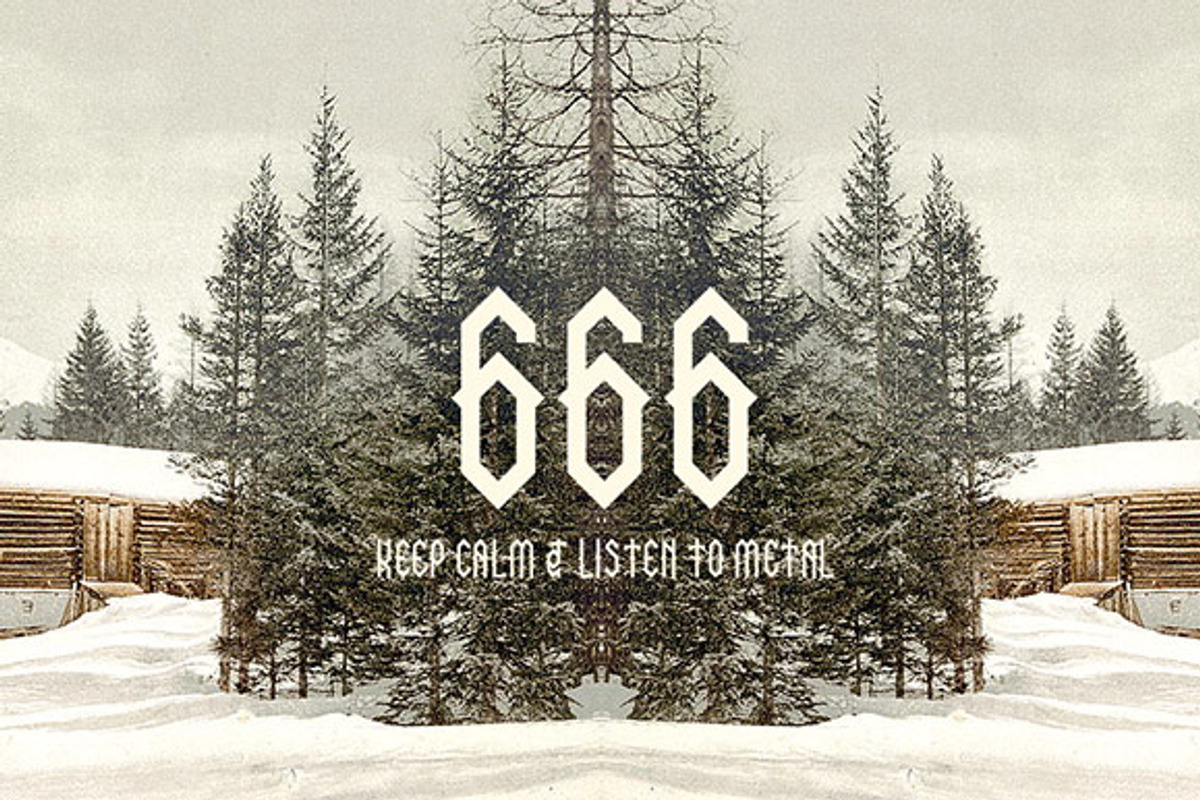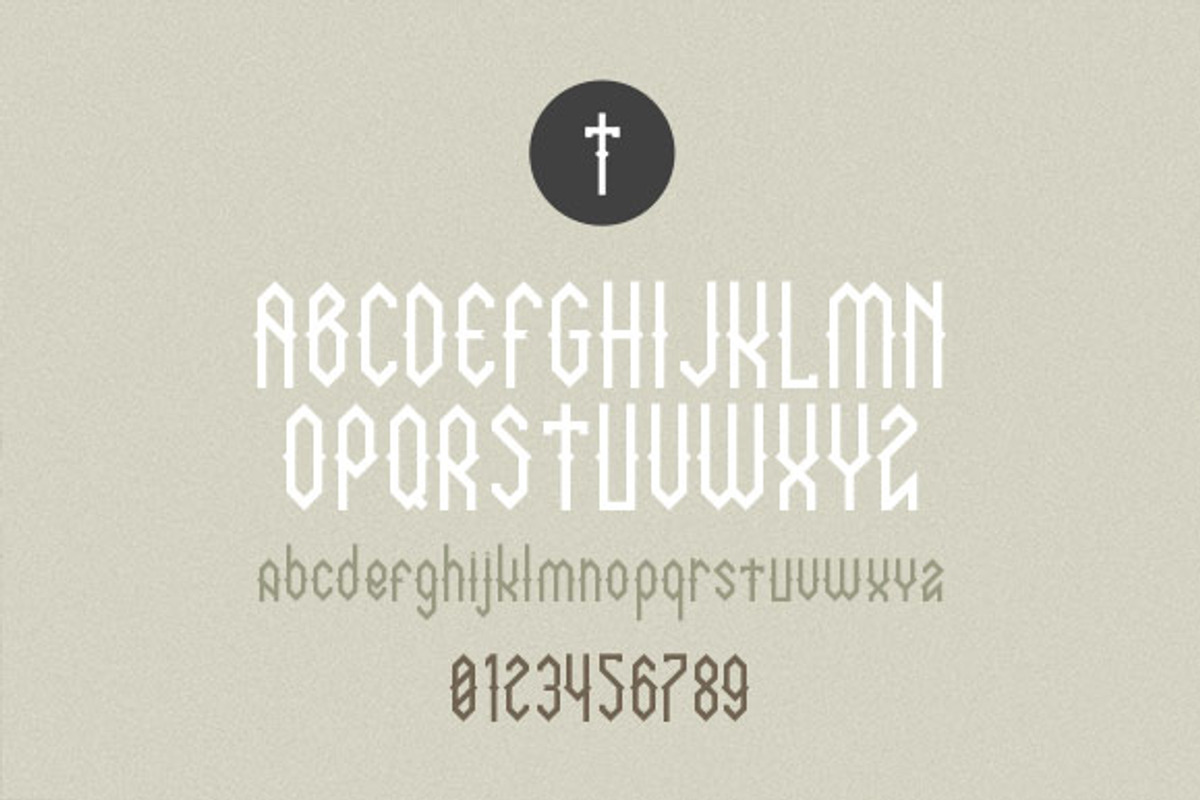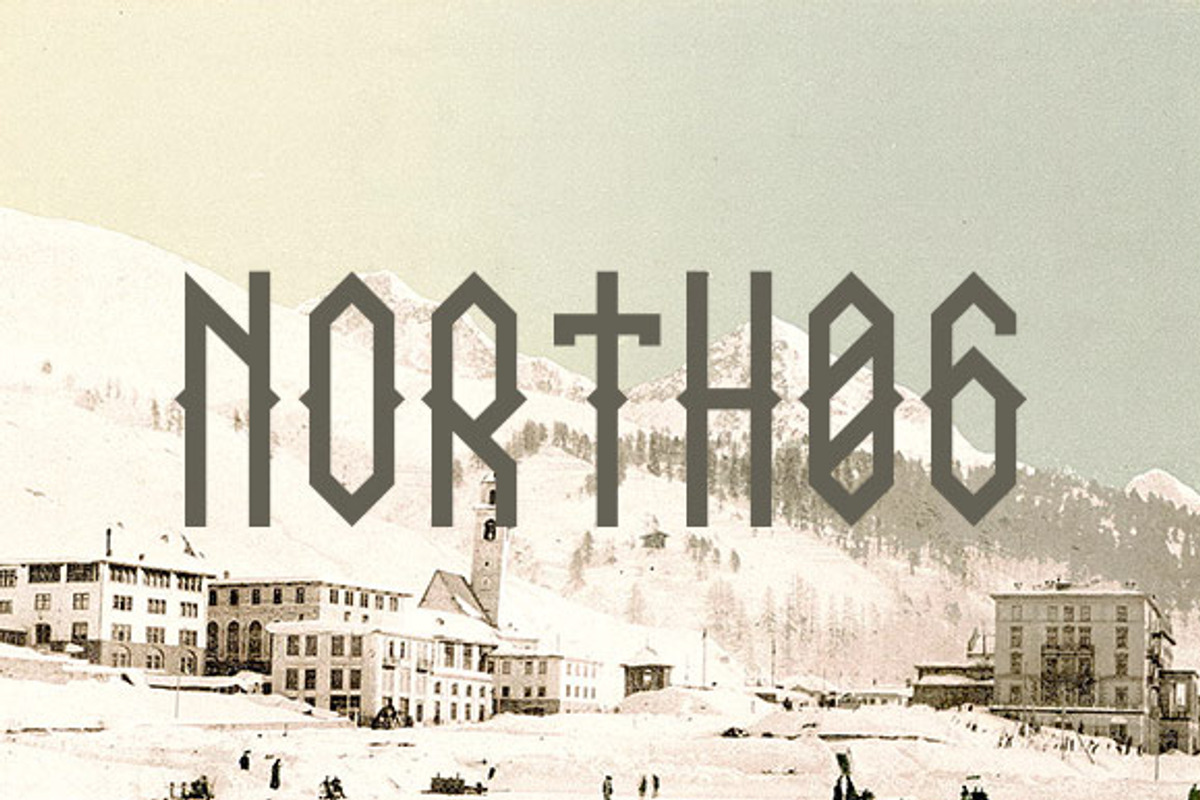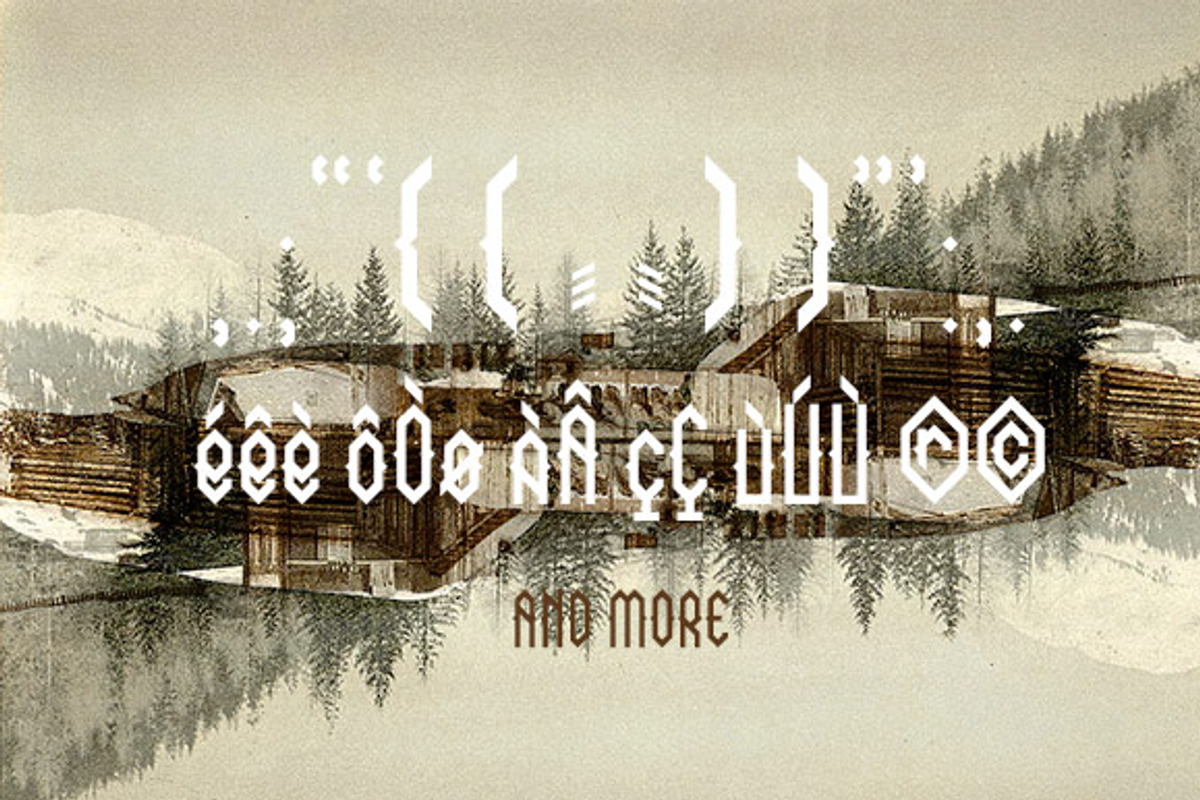
NORTH 06 - font
NORTH 06 - font by David is Creative is a font selected for branding, posters, packaging, typography.
Why NORTH 06 - font is worth a look
NORTH 06 - font by David is Creative fits naturally into Branding, posters, packaging, typography.